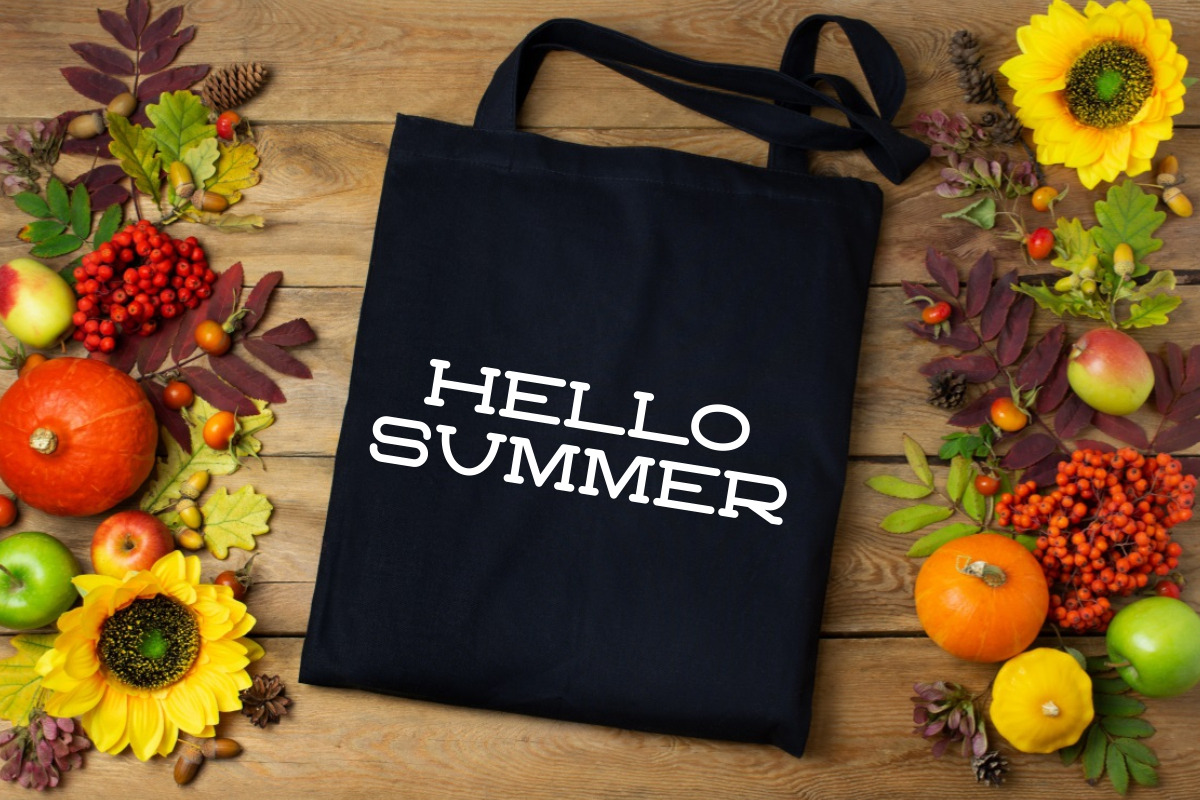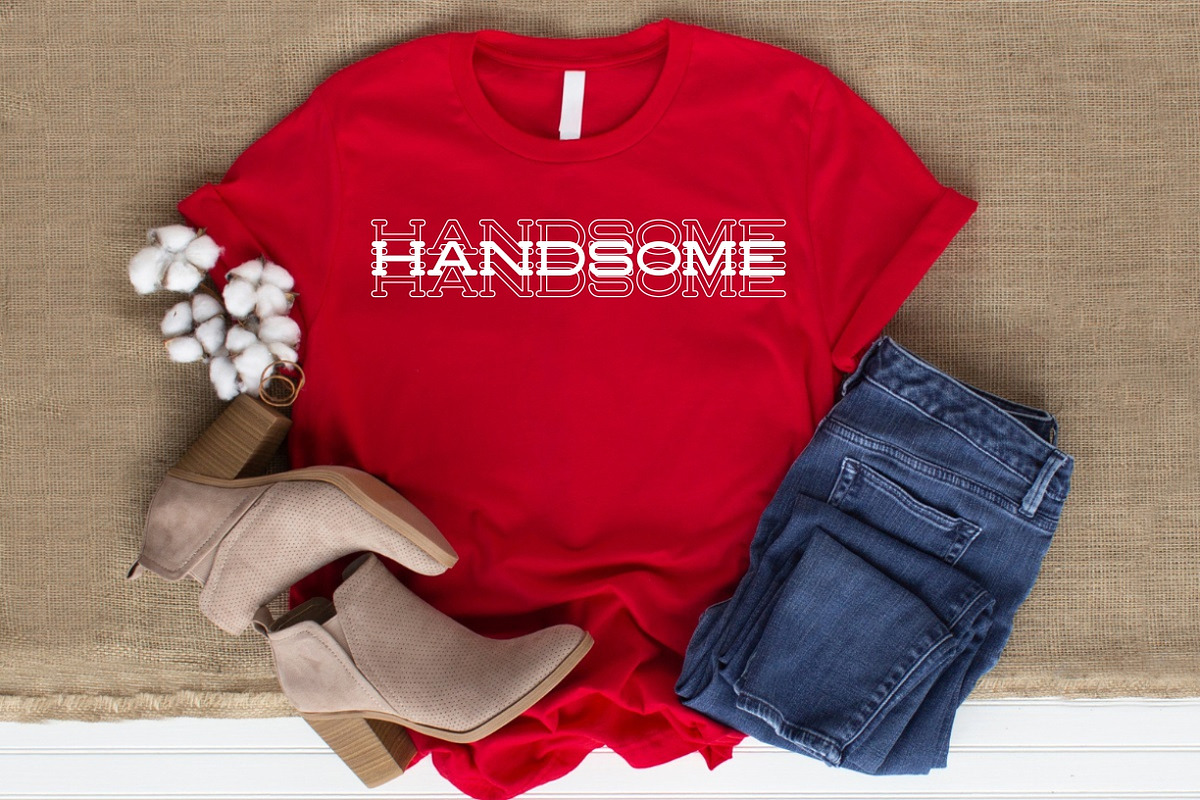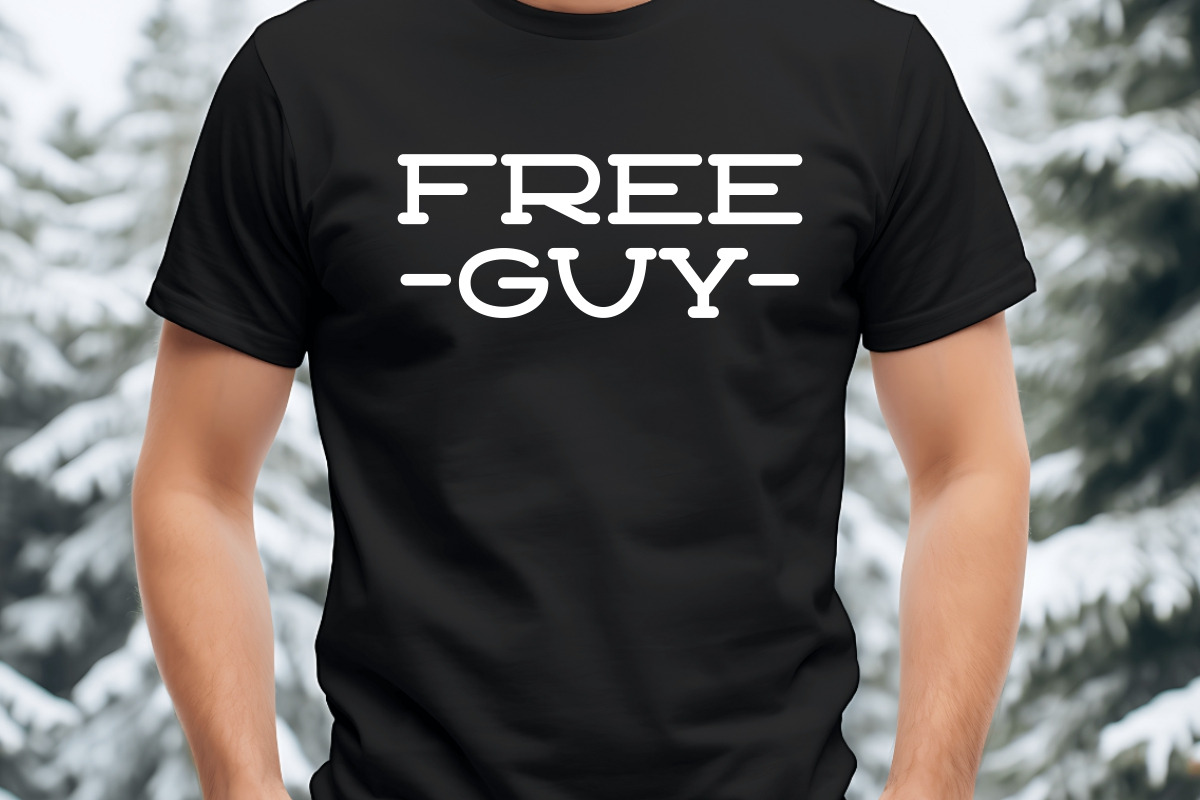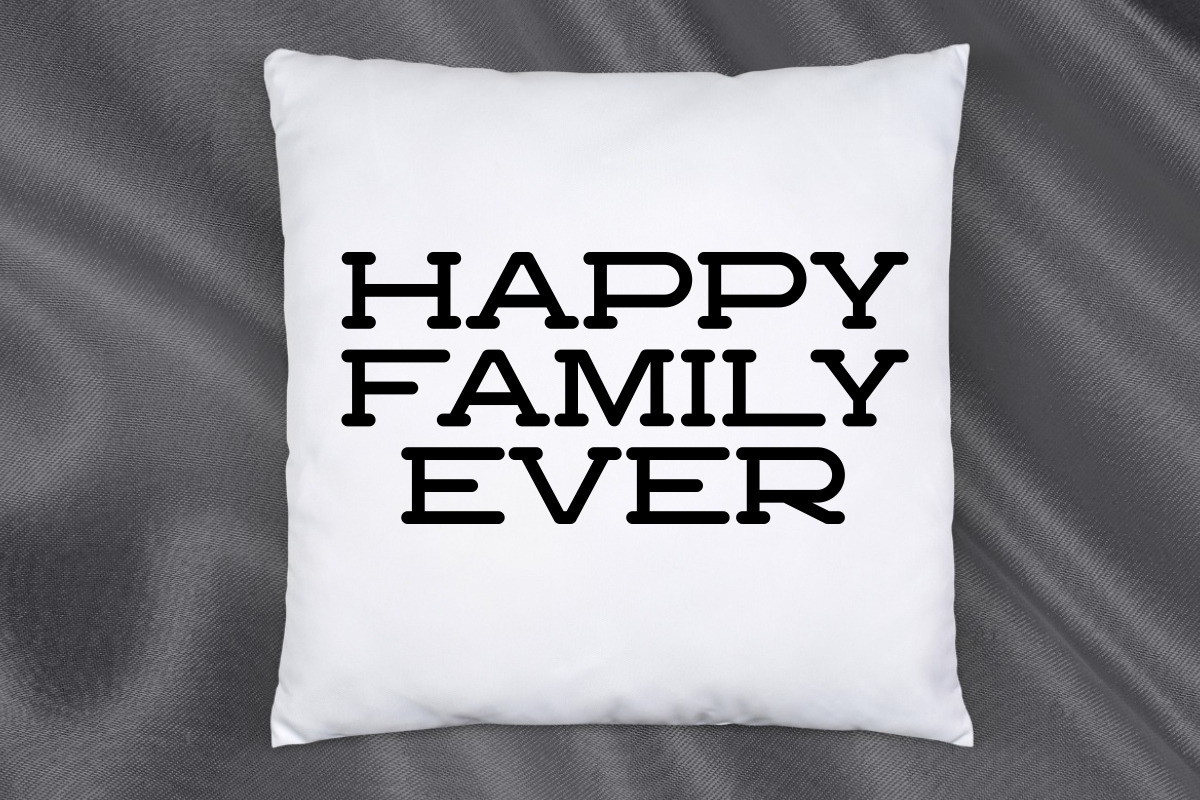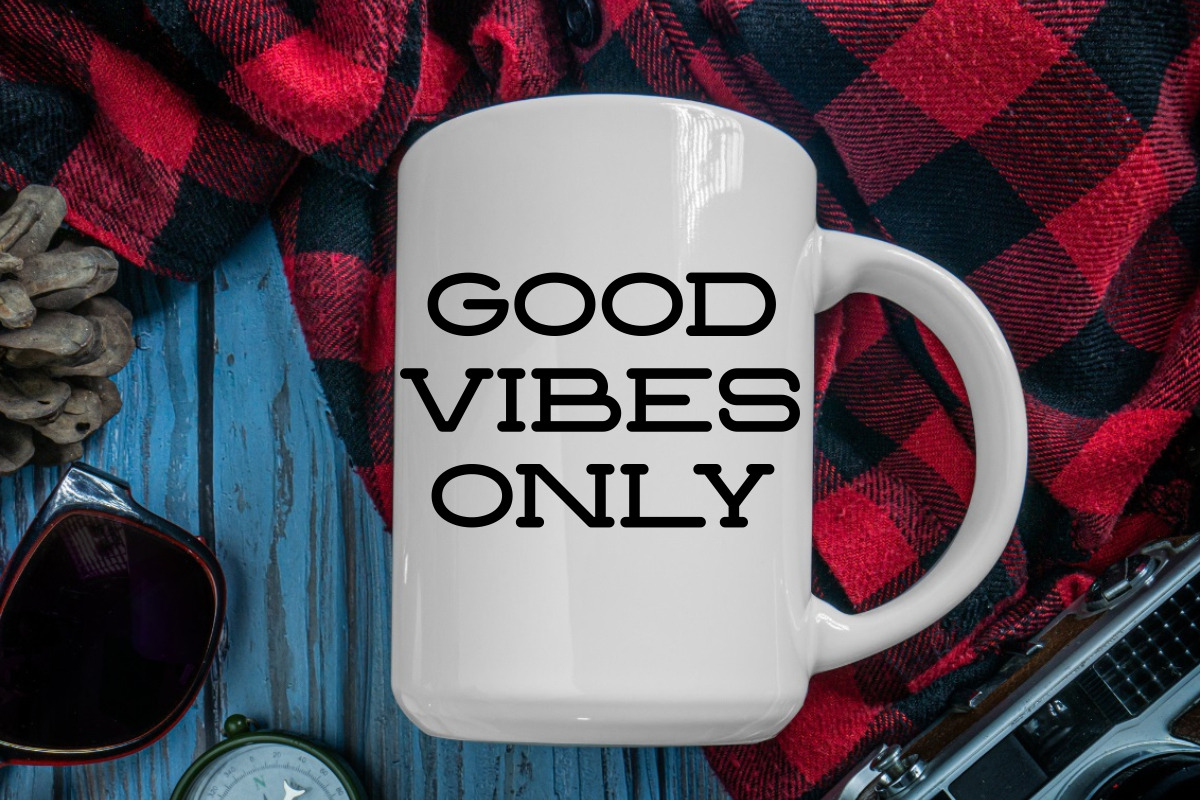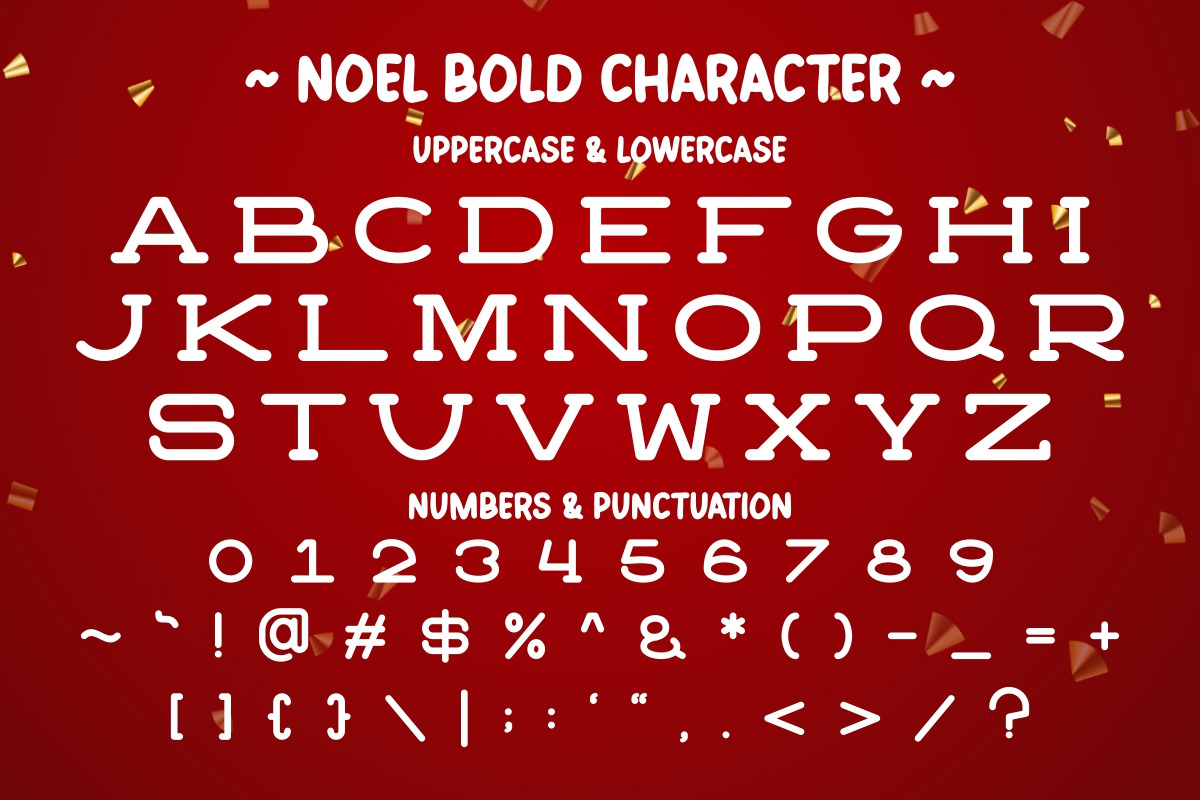
Noel Bold - Modern Slab Serif
Noel Bold is a modern slab serif font designed to infuse the festive spirit of Christmas into your creative projects. This typeface boasts bold and impactful characters, making it the perfect choice for adding a touch of holiday cheer and emphasis to your design.